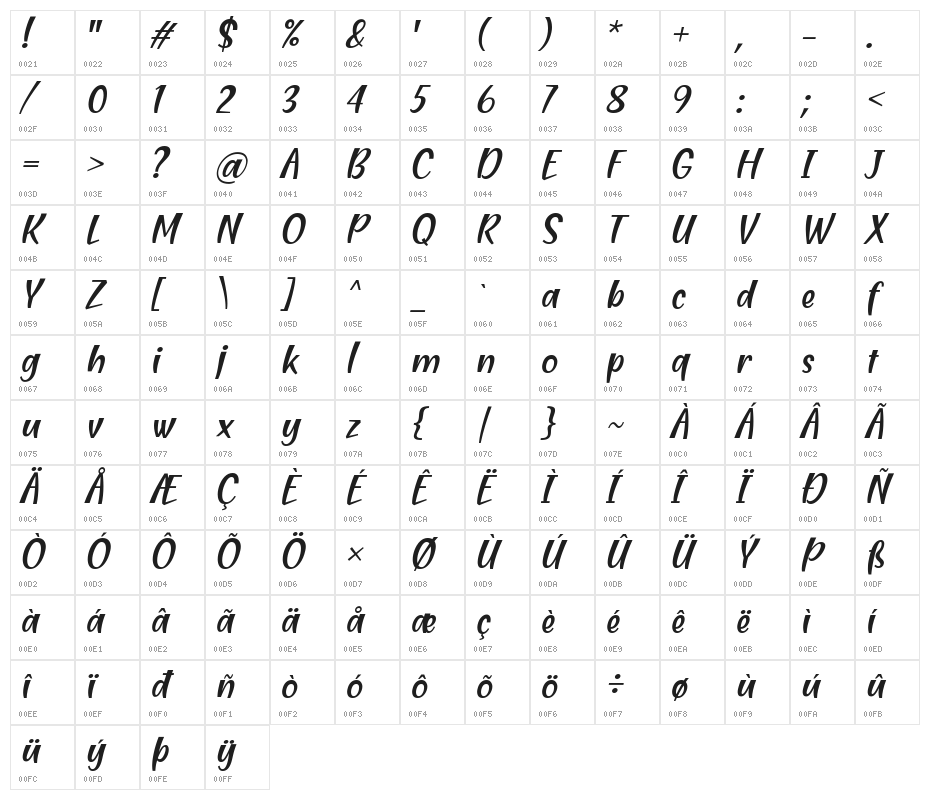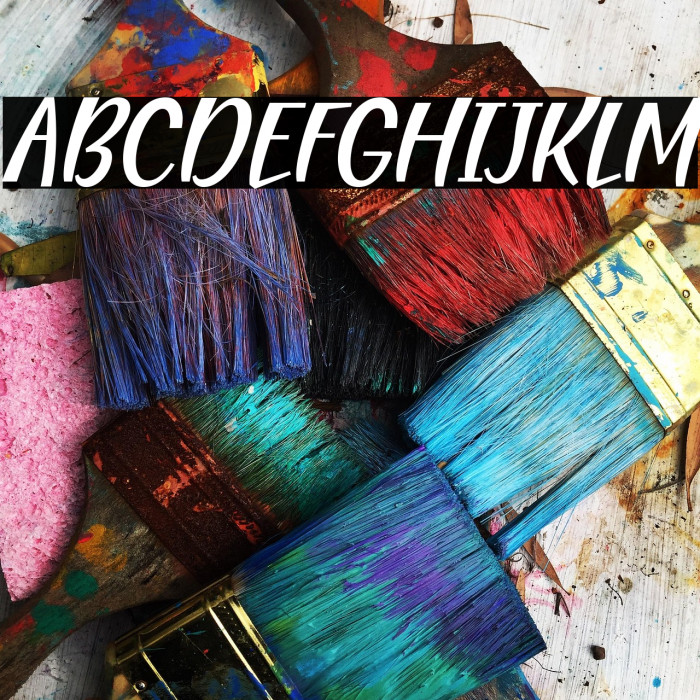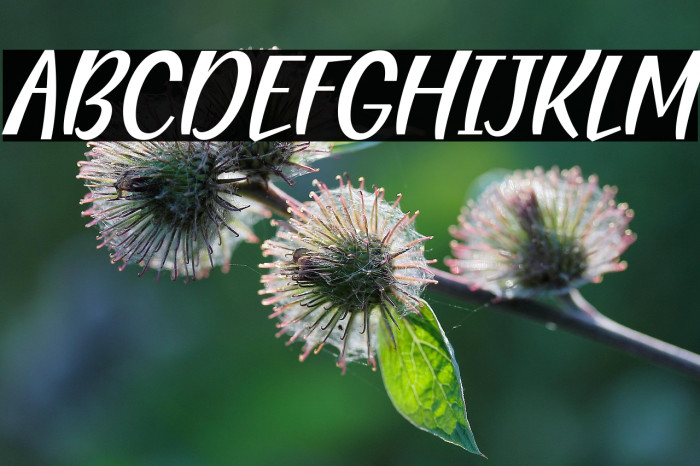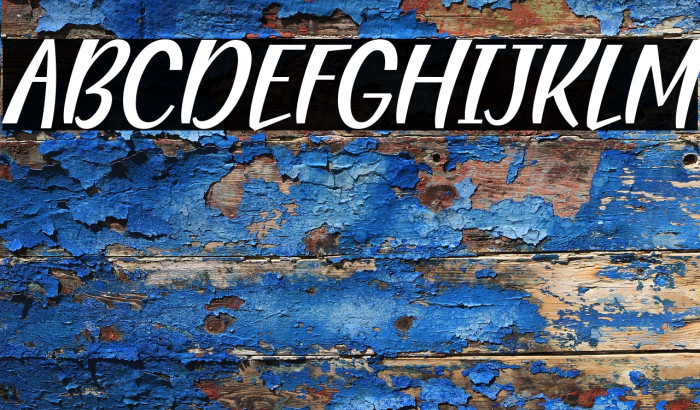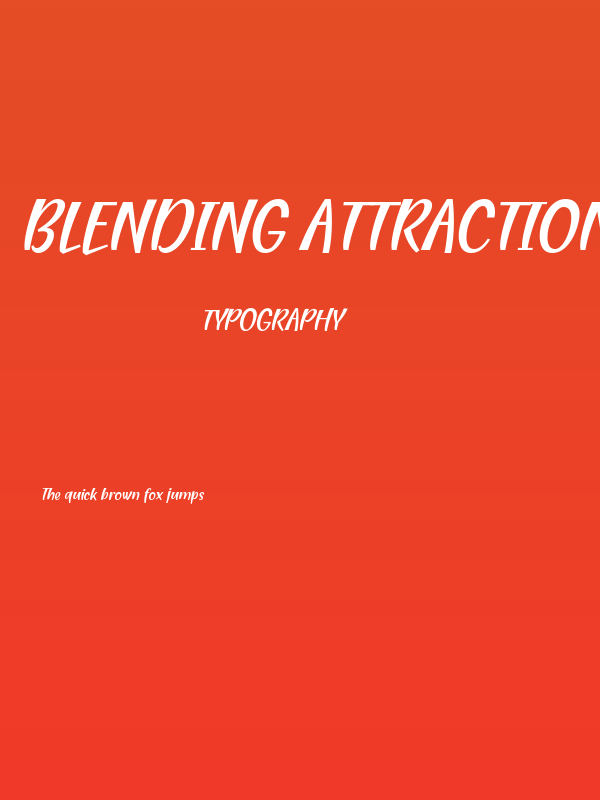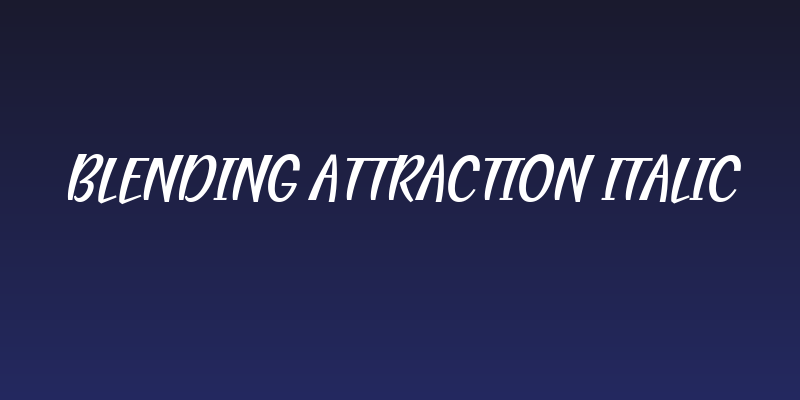
Blending Attraction Italic Font
Blending Attraction Italic Description
This font features a dynamic and flowing italic style, characterized by its smooth, cursive-like strokes that convey a sense of movement and elegance. The uppercase letters are bold and slightly slanted, while the lowercase letters maintain a consistent flow with rounded edges and a slight tilt. The numerals are clear and legible, matching the overall style with a slight slant. Special characters are well-integrated, maintaining the font's cohesive look. The font's design is both modern and stylish, making it suitable for a variety of creative applications.
| Proposed Projects | Ideal for branding, advertising, fashion magazines, and creative projects requiring a stylish and elegant touch. |